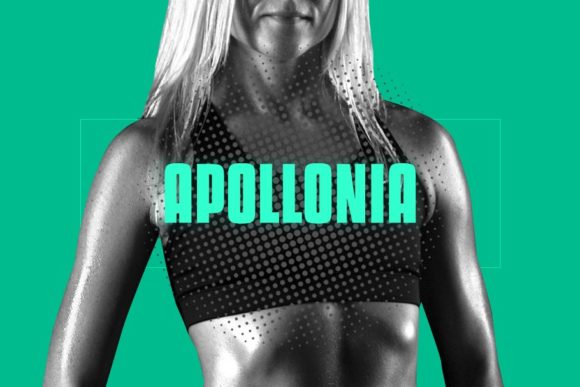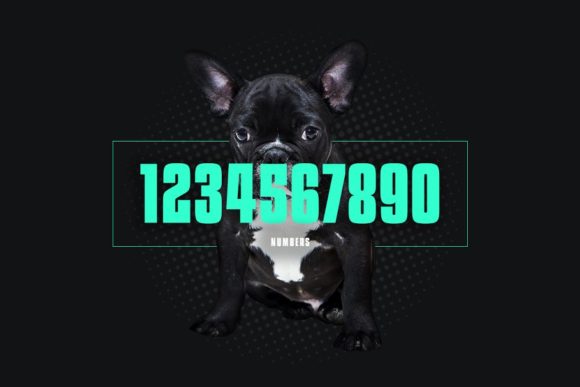
Give Your Creations a Bold New Voice with the Apollonia Pro Font
Have you ever been stuck in a creative rut, staring at a blank page or screen, desperate for the perfect font to bring your idea to life? We’ve all been there. But what if I told you that the solution is simpler than you think? It all starts with the right font, and that’s where the Apollonia Pro Font comes in.
This stunning sans serif font is more than just a pretty face – it’s a game-changer for designers and creatives looking to make a lasting impression. With its bold and simple design, the Apollonia Pro Font is the perfect addition to any project, from logos and branding to digital designs and print materials.
Whether you’re a seasoned pro or just starting out, incorporating the Apollonia Pro Font into your work can elevate your creations to the next level. So why settle for ordinary when you can have extraordinary? Add the Apollonia Pro Font to your toolkit and watch your ideas shine like never before!
Apollonia Pro Font Key Features
- Font Size: The font family includes 12 weights, ranging from Thin (100) to ExtraBold (900), providing a wide range of design options.
- Unique Characteristics: Apollonia Pro Font features a unique blend of modern and classic elements, with subtle rounded edges and a sophisticated aesthetic.
- Font Metrics: The font has a x-height of 0.75 and a cap height of 1.2, providing a balanced and harmonious text layout.
Apollonia Pro Font Review
As a designer, I’ve had the chance to work with a wide variety of fonts, but the Apollonia Pro Font has caught my eye. Here’s my honest review.
- The Apollonia Pro Font has a beautiful, elegant feel to it. It’s perfect for creating a sophisticated and luxurious look.
- The font is highly legible, even at smaller font sizes. This makes it ideal for body text or headings where readability is crucial.
- The font family includes a wide range of weights and styles, making it highly versatile and suitable for a variety of design projects.
- The Apollonia Pro Font may not be the best choice for projects that require a more playful or casual tone. It’s a bit too formal for those types of projects.
- The font may not be suitable for digital signage or other high-contrast displays, as the letterforms can become distorted at certain angles.
The Apollonia Pro Font is a solid choice for designers who want to create a high-end, luxurious look. While it may have some limitations, it’s a great option for projects that require a sophisticated and elegant feel.
Tips for Getting the Most Out of Apollonia Pro Font
Use Apollonia Pro Font for headings and titles to add a touch of elegance and sophistication to your designs. Experiment with different font sizes and styles to create visual interest. Pair Apollonia Pro Font with other fonts to create a harmonious and balanced design.
Apollonia Pro Font is ideal for use in luxury branding, high-end advertising, and editorial design. Its elegant and sophisticated style makes it perfect for creating a premium and polished look.